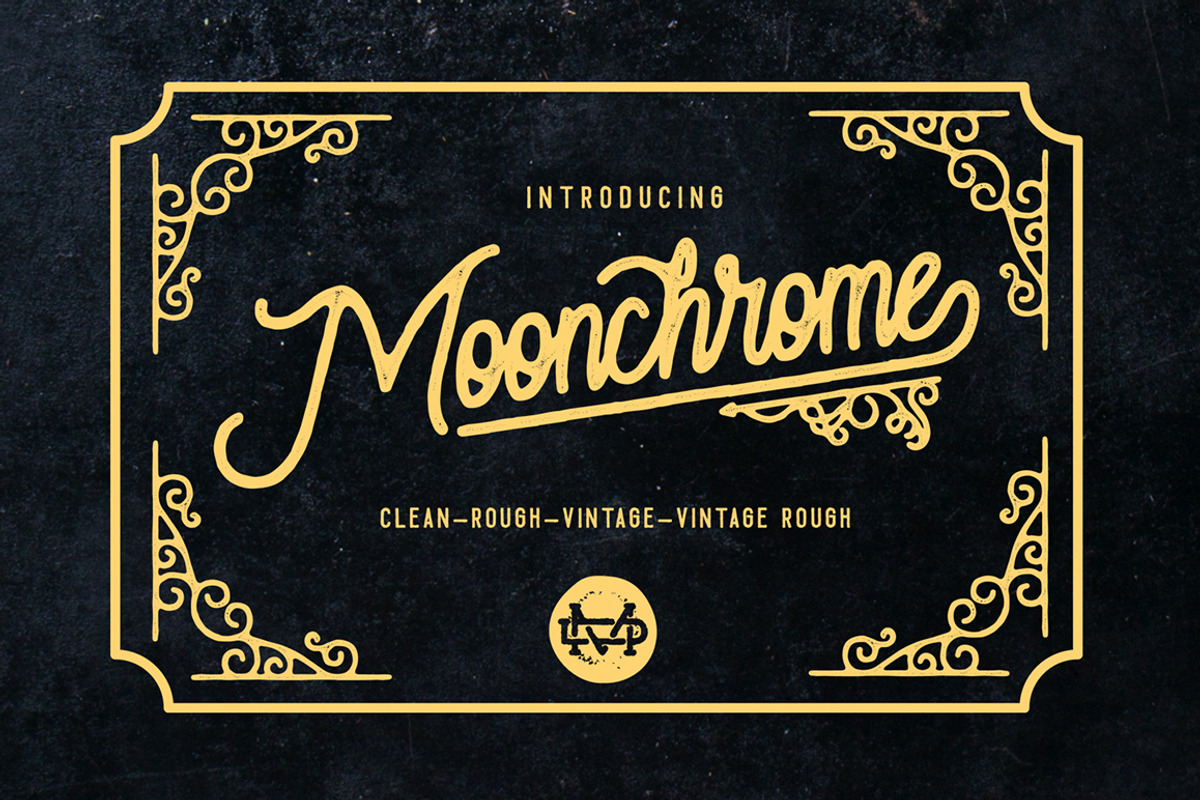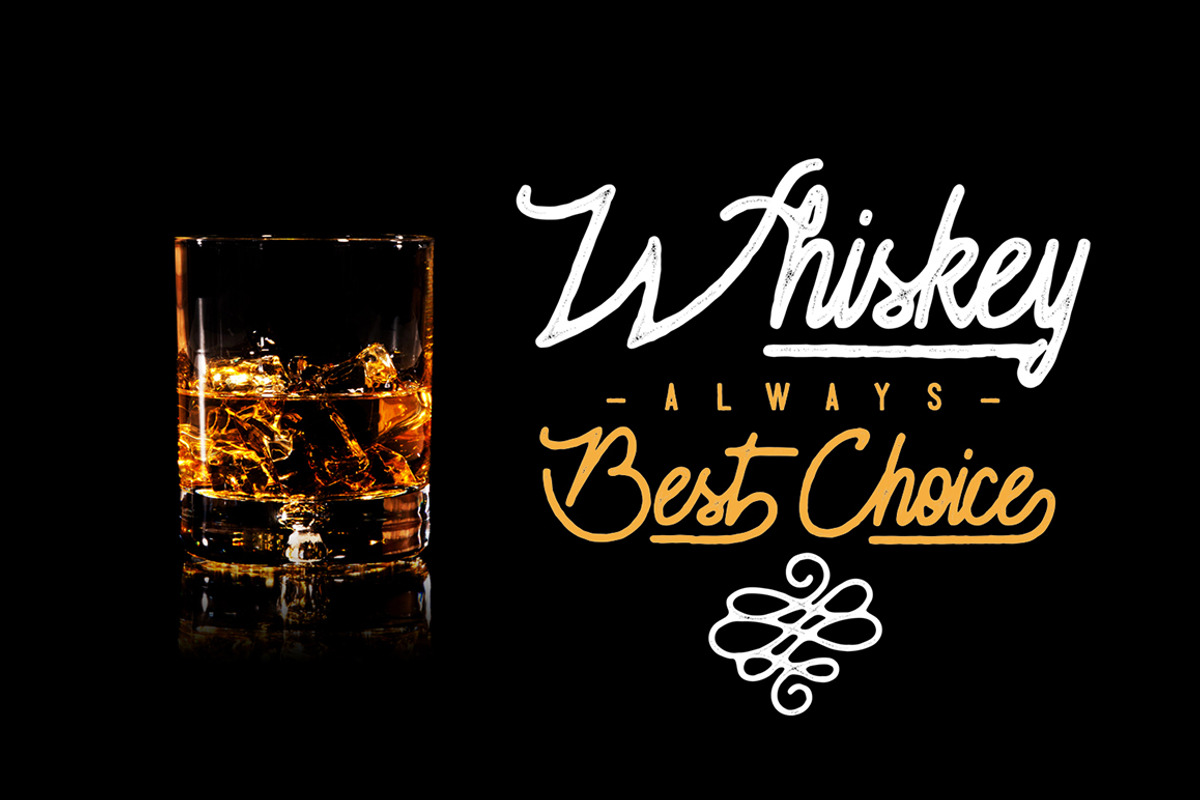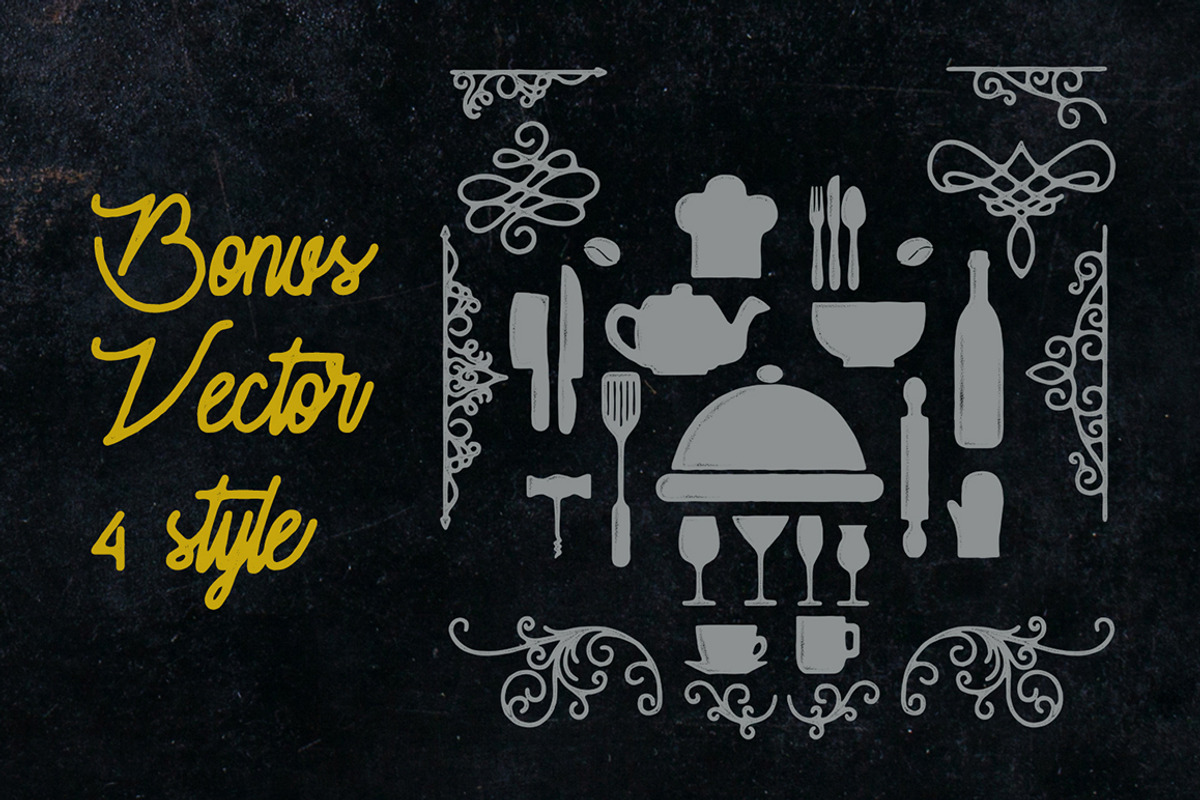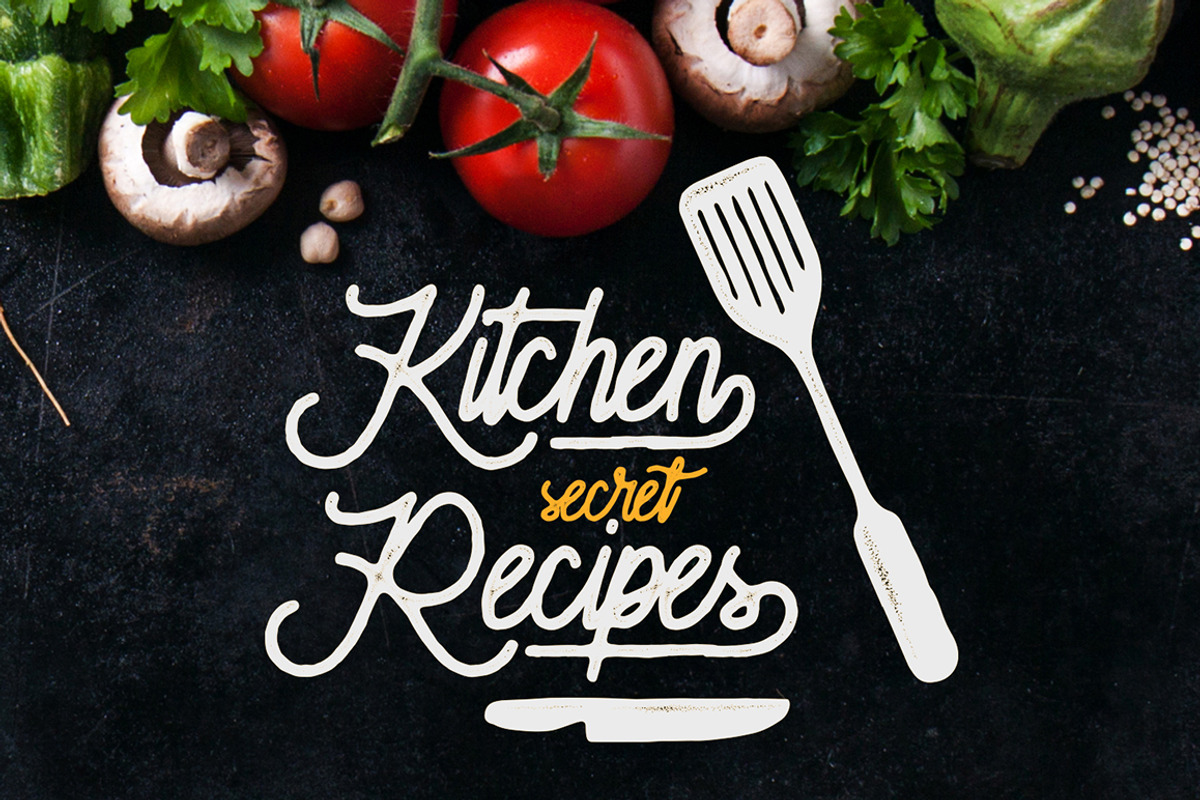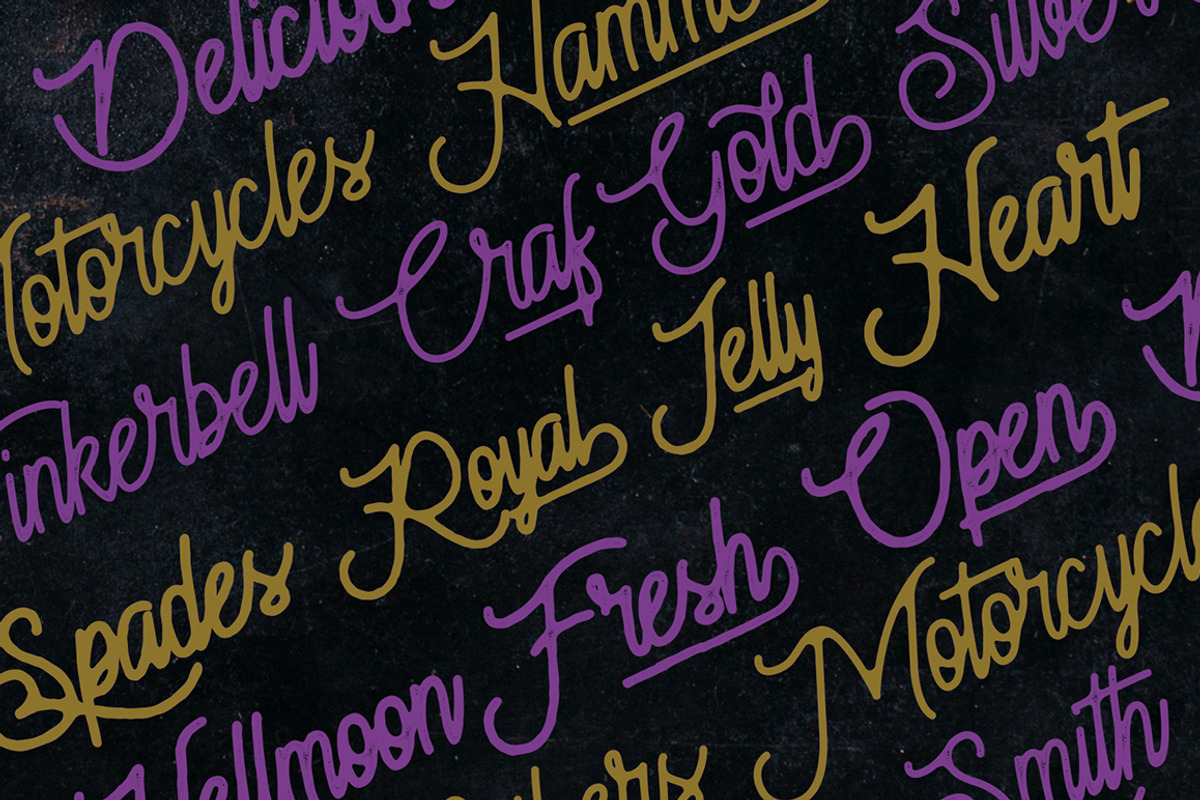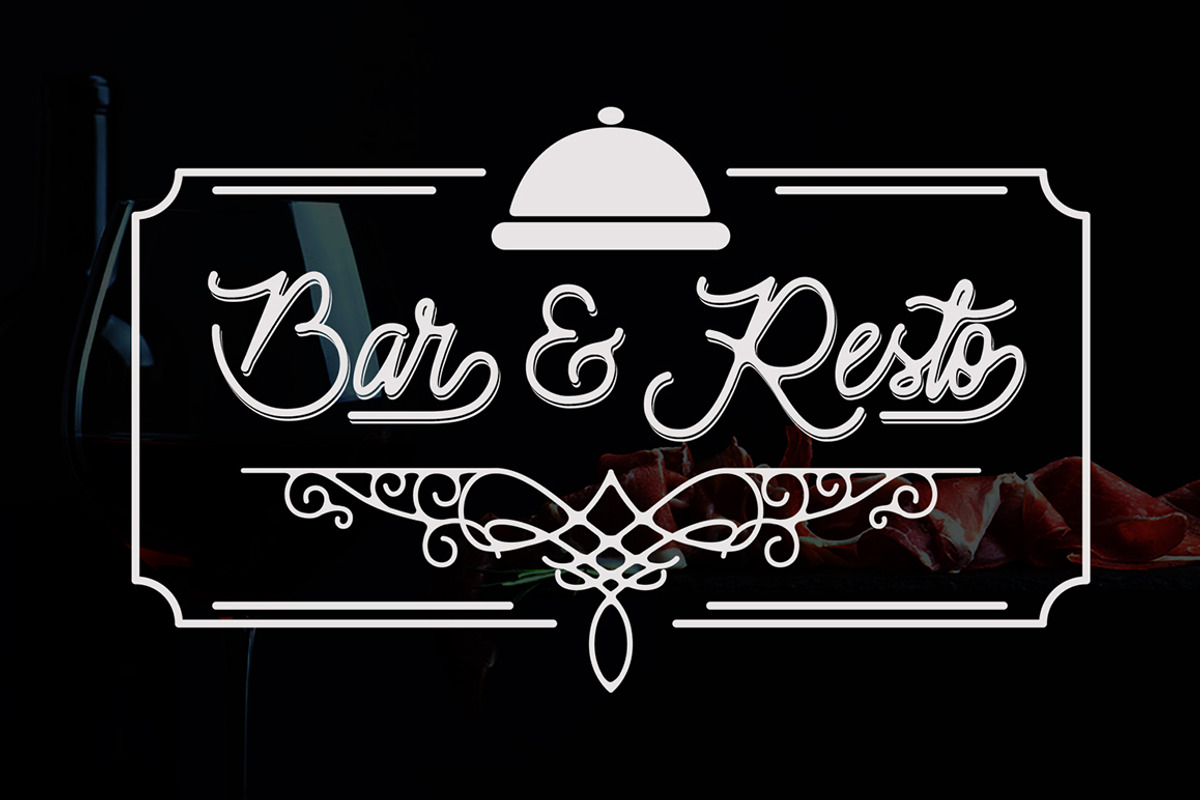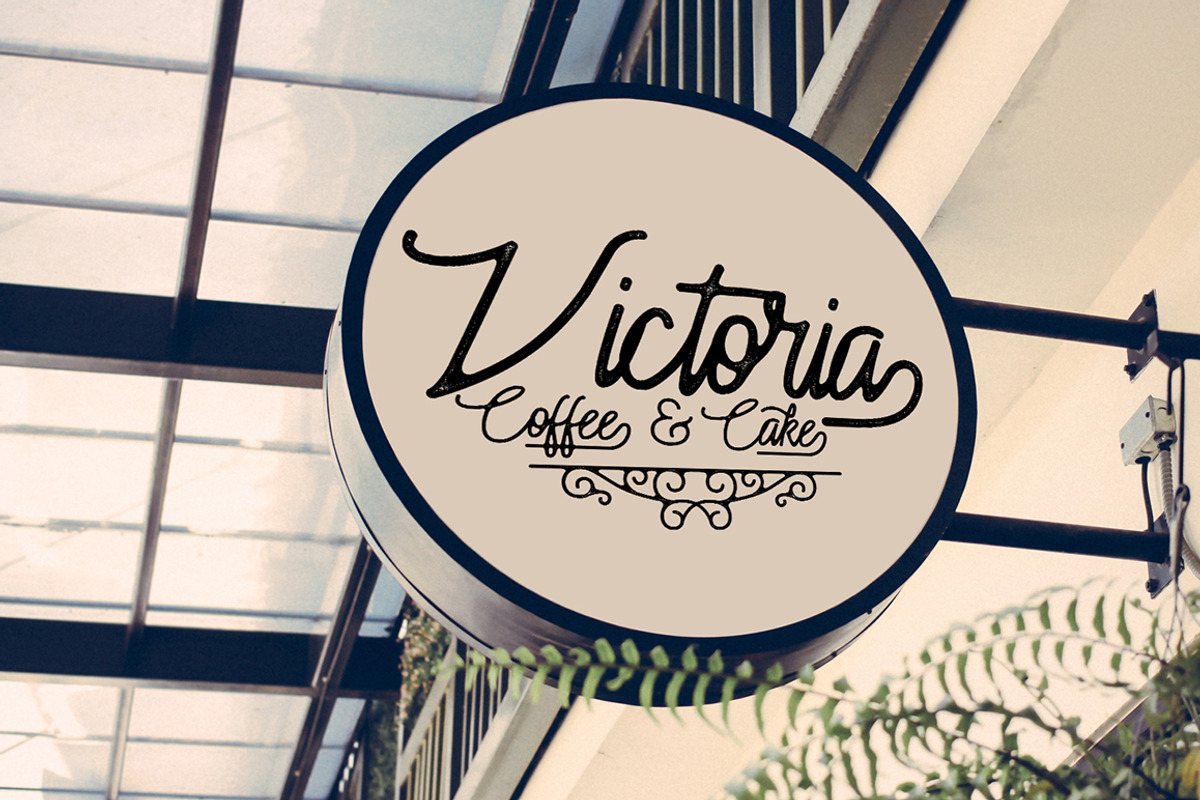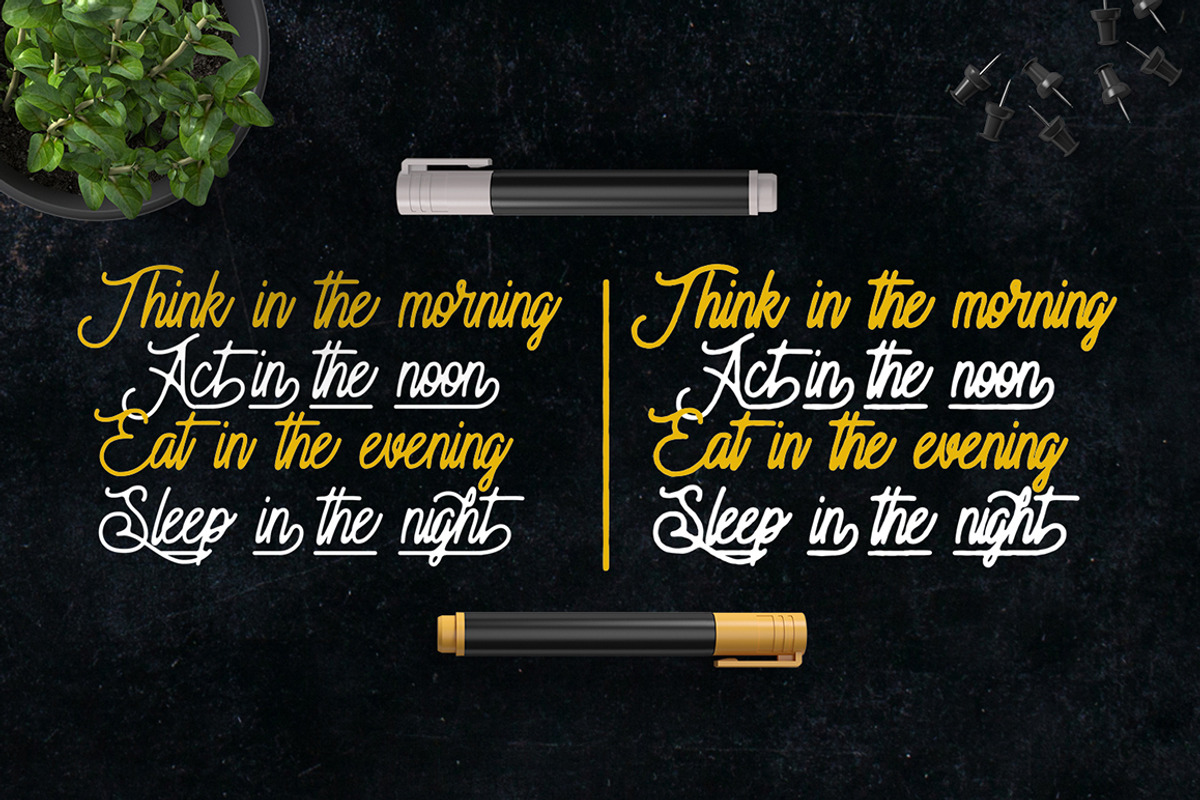
Moonchrome typeface + Bonus
Hello I'm really excited to introduce, Moonchrome typeface font with with 4 alternate variations. This monoline typeface perfect for poster design, book covers, merchandise, fashion campaigns, newsletters, branding, advertising, magazines, greeting cards, album covers, and quote designs and more.
- Hello I'm really excited to introduce, Moonchrome typeface font with with 4 alternate variations.
- Moonchrome Regular
- Moonchrome Rough Regular
- Moonchrome Vintage Regular
- Moonchrome Vintage Rough Regular